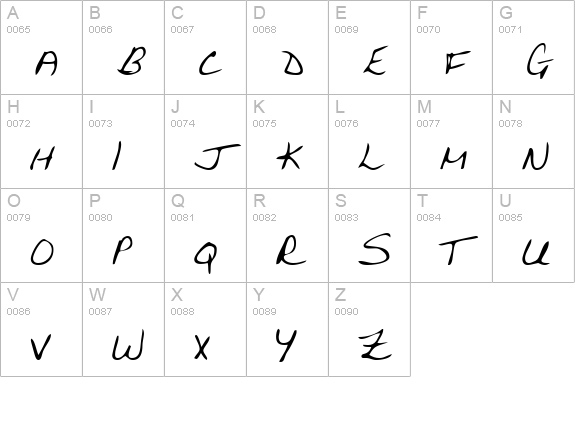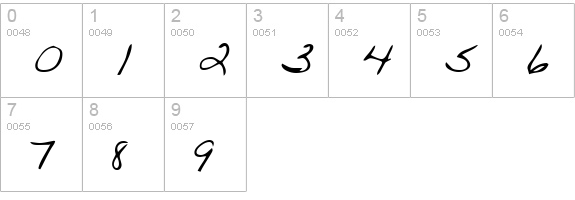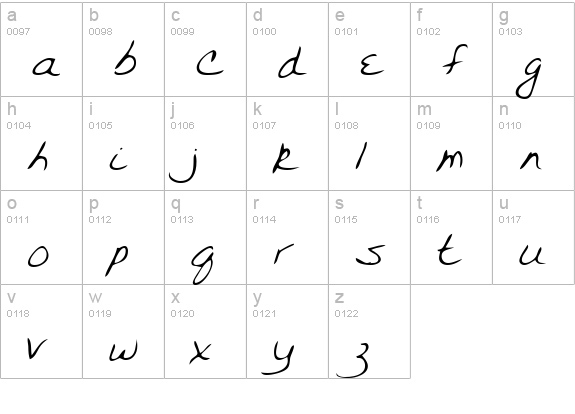
FarinasHand Regular Font Details
FarinasHand Regular is the standard, neutral variant in the FarinasHand typeface family \xE2\x80\x94 well suited to general body text, paragraphs, and standard typographic work.
FarinasHand Regular is a charming and elegant font that exudes a sense of sophistication and grace. With its smooth curves and flowing lines, this typeface is perfect for adding a touch of refinement to any project. Whether you're designing a wedding invitation, a logo, or a social media post, FarinasHand Regular will elevate your design to the next level. What makes FarinasHand Regular even more appealing is that it is available for free download at FontsMarket.com. This means that you can access this beautiful font without any cost, making it a valuable addition to your font collection. Don't miss out on the opportunity to enhance your designs with FarinasHand Regular - download it today and let your creativity shine!